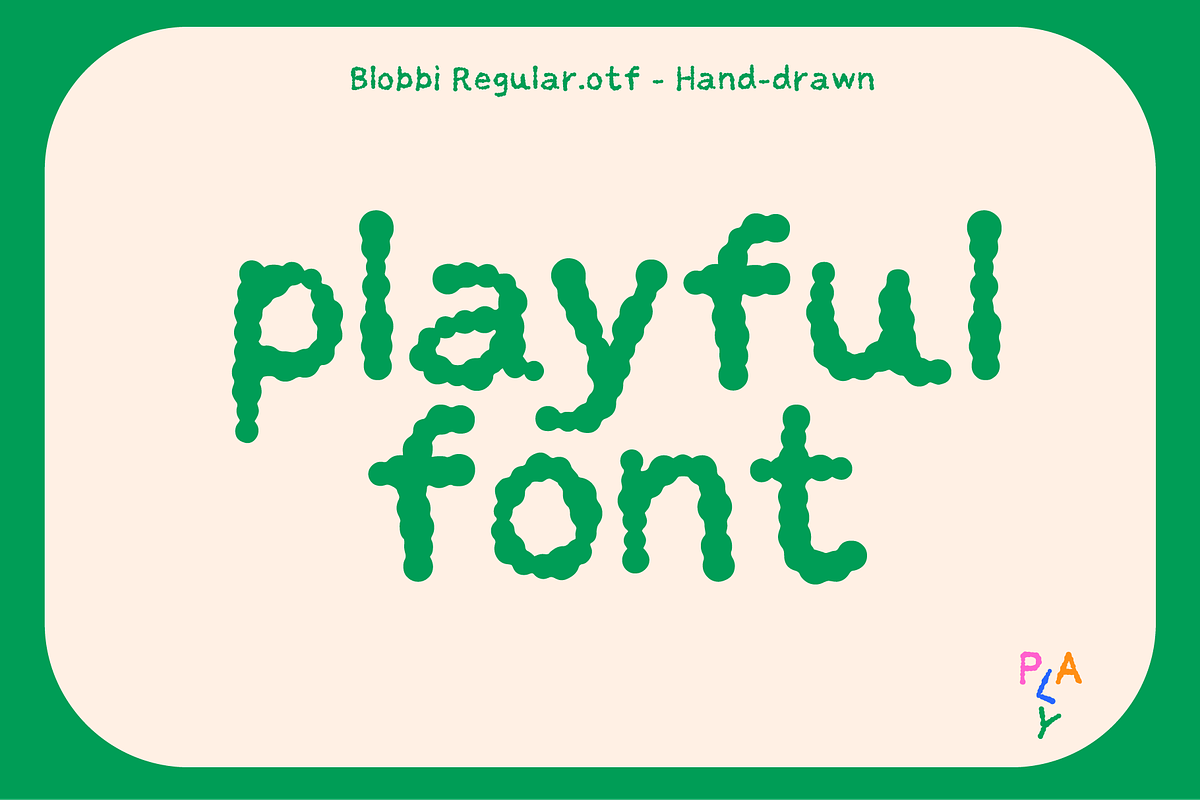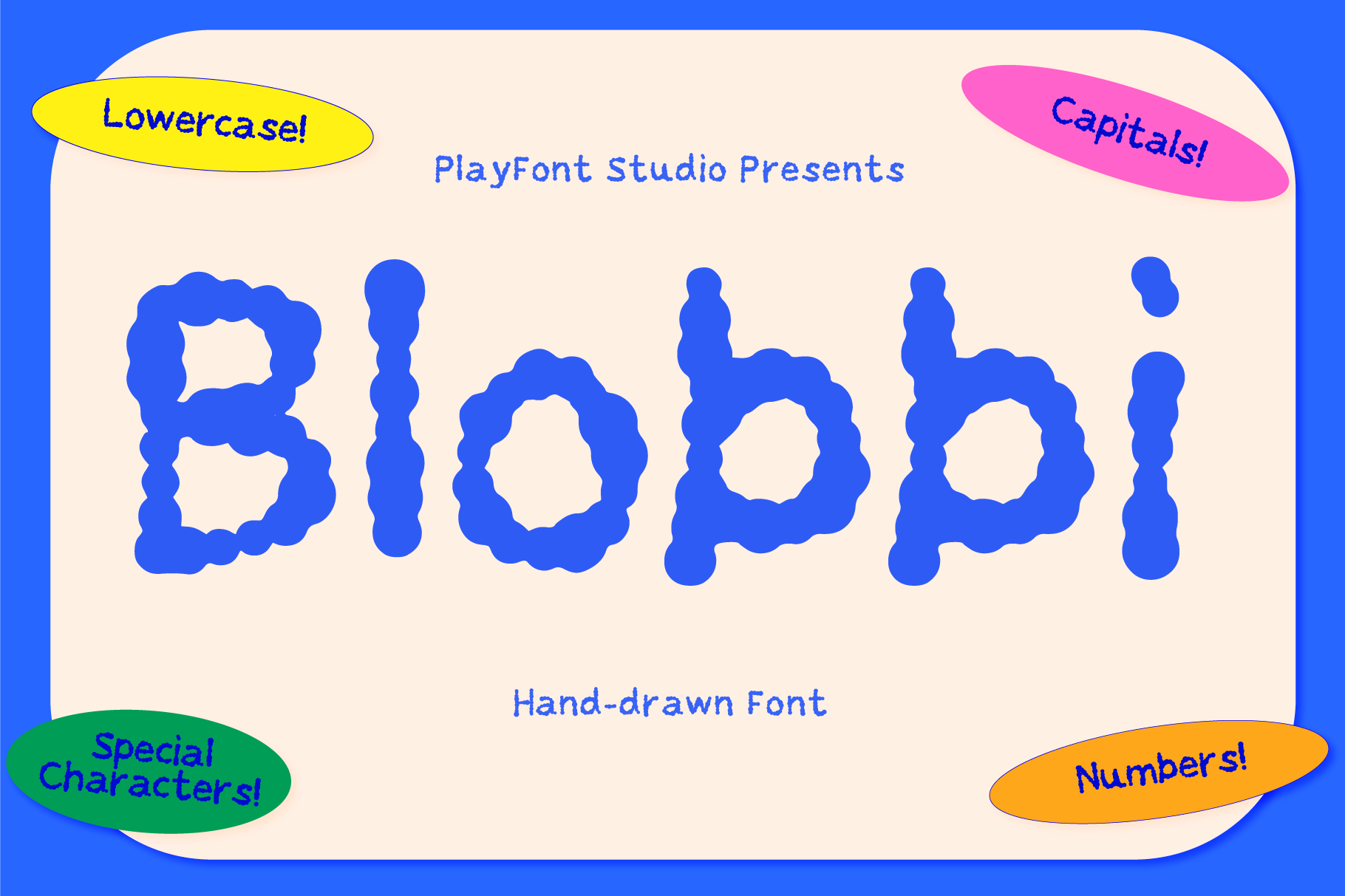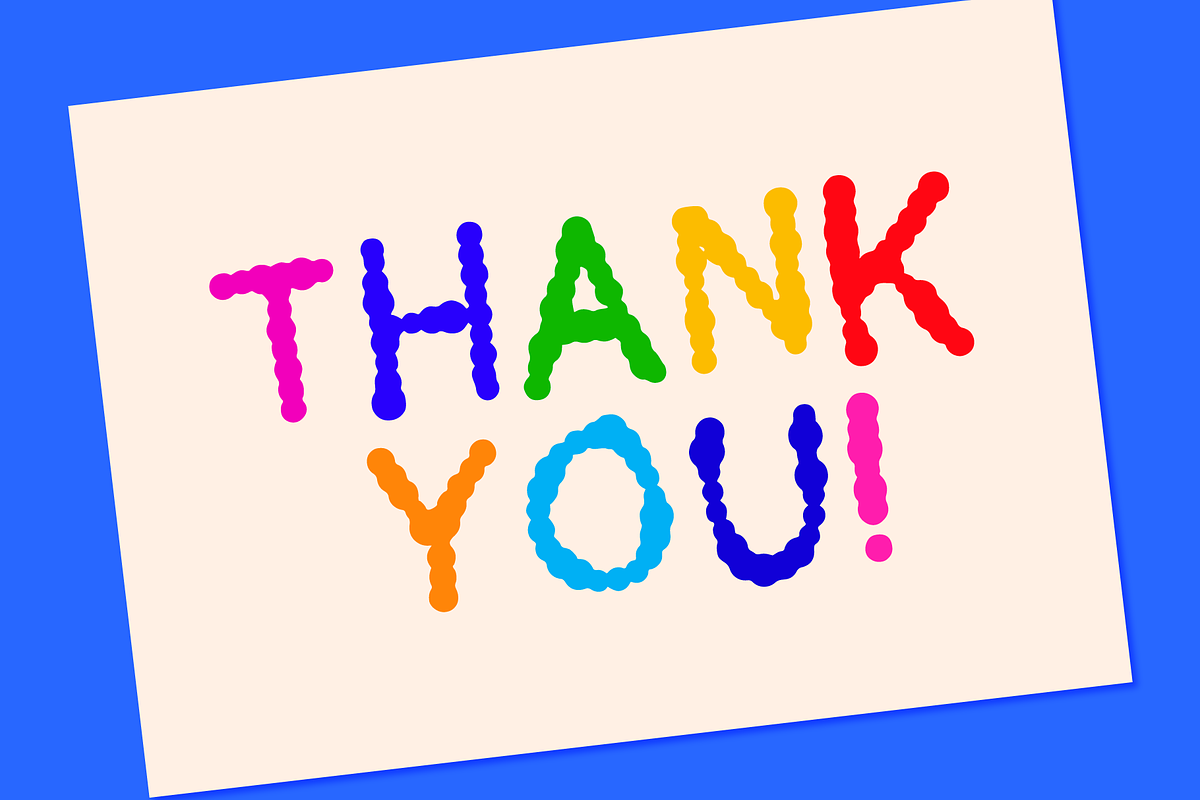
Blobbi - A Chunky Handmade Font
Round. Chunky. Completely charming.
Blobbi is a handmade font with serious personality - its thick, wobbly letterforms feel like they've been drawn with love and a very fat marker pen. It's the kind of font that makes people smile immediately, which makes it perfect for playful branding, product packaging, and social content that needs to stand out.
- Playful brand identities & logos
- Product packaging & labels
- Sticker design & merchandise
- Children's content & branding
- Social media graphics & reels covers
- Indie food & drink brands
- Full uppercase & lowercase character set